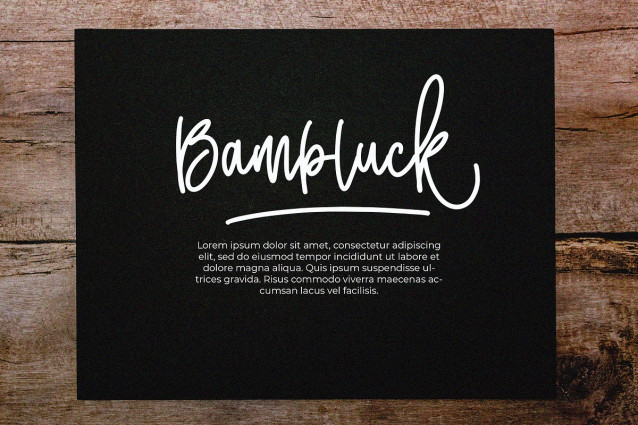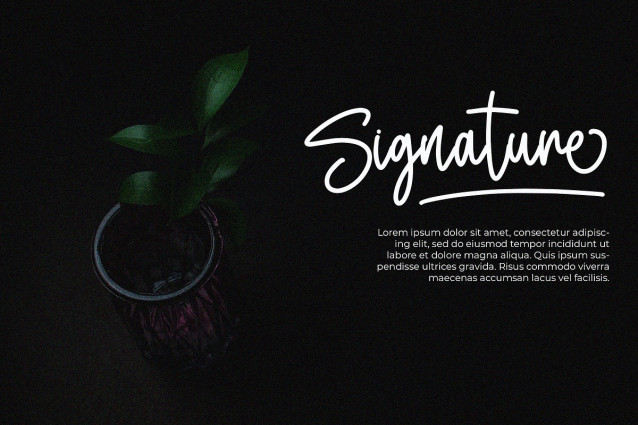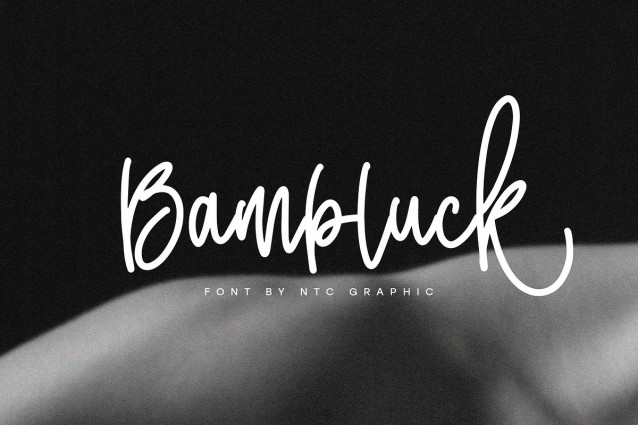
Bambluck Monoline Font
Bambluck Monoline Font is a beautiful script font with minimalist monoline style. Is a font style that is made with scratches and curvature shapes font characters are very beautiful. Can be applied to support the graphic appearance of the product to be more attractive and unique.